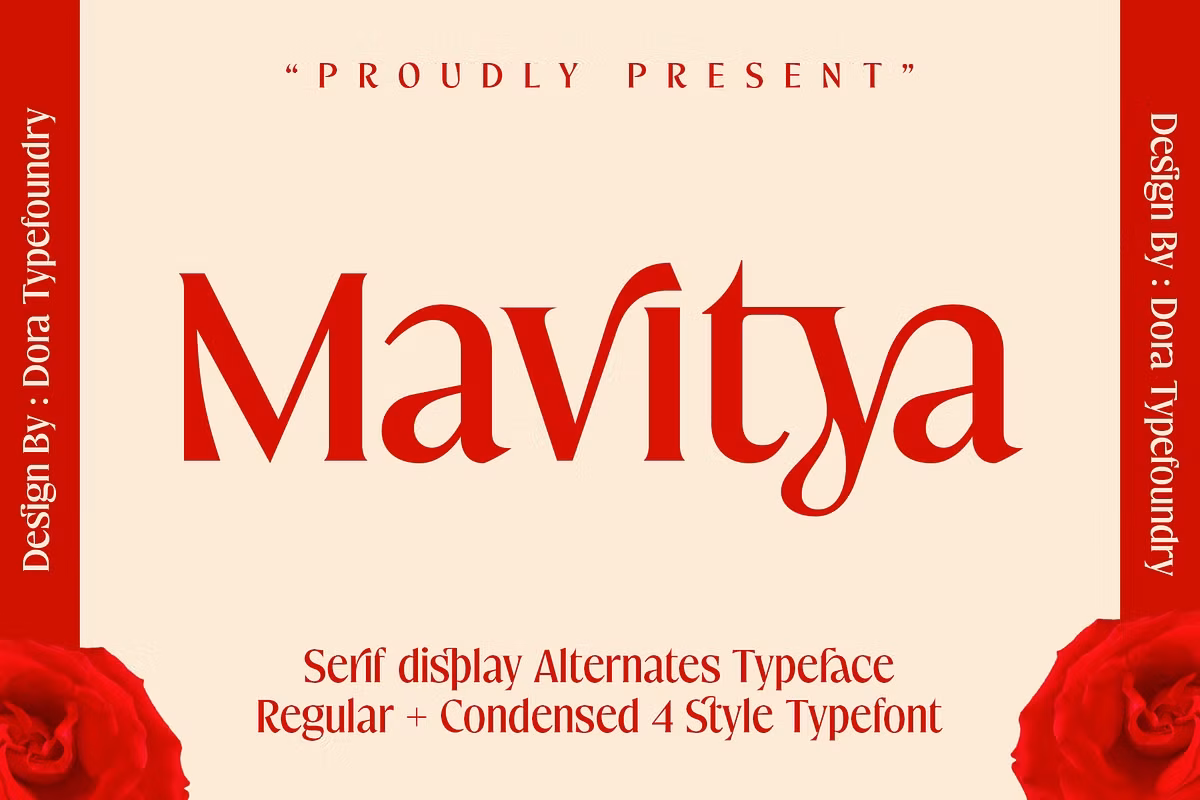
Mavitya Font Free Download is a sophisticated and stylish typeface that blends modern design with timeless elegance. Perfect for logos, branding, invitations, and more, Mavitya’s clean lines and unique letterforms give your designs a polished and professional feel. Its versatility makes it suitable for both digital and print applications, ensuring your message stands out with clarity and style.